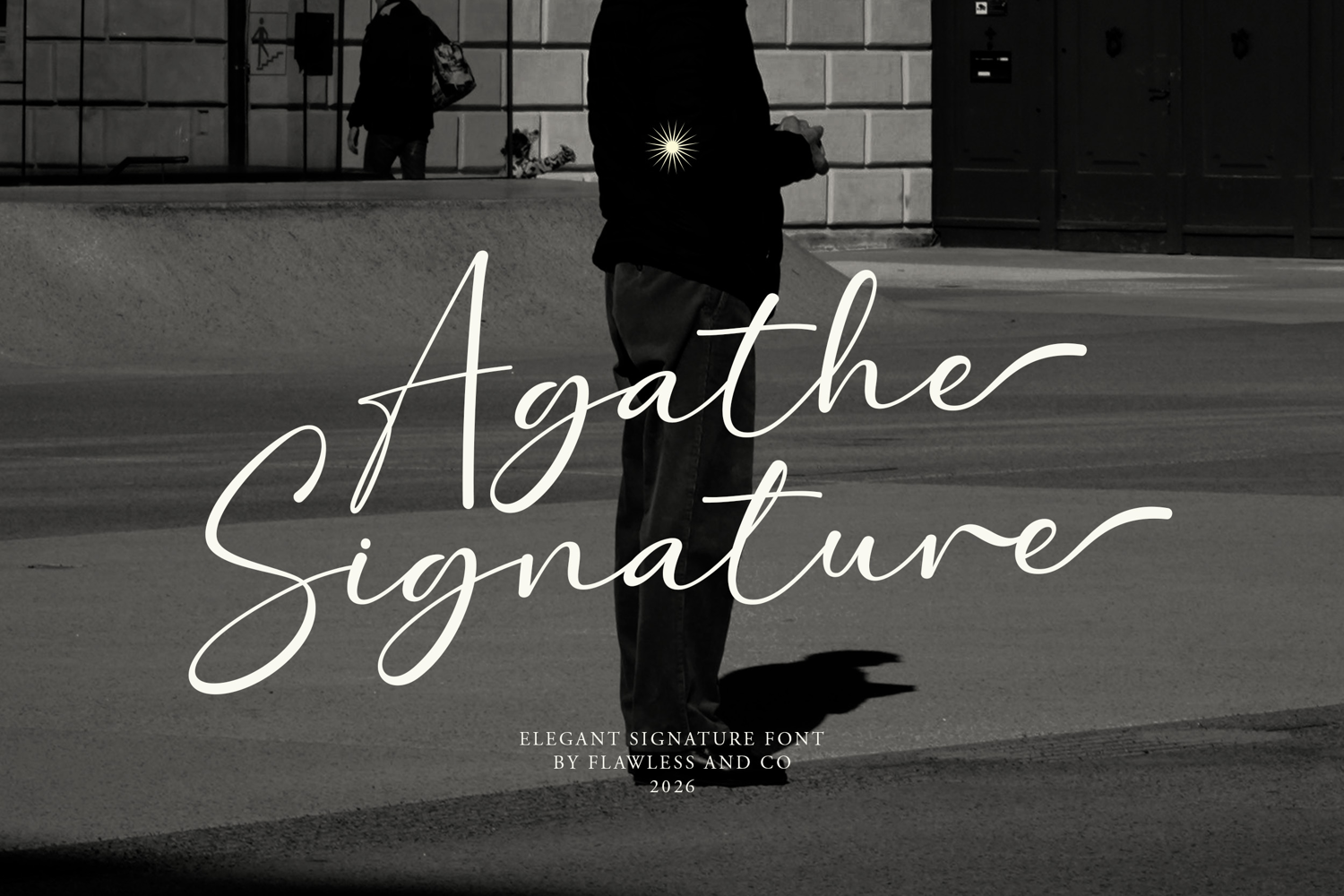
Agathe Signature
Agathe Signature - Handwritten Font
Agathe Signature is an elegant handwritten signature font crafted to capture the beauty of natural handwriting with a sophisticated and modern touch. Featuring smooth flowing strokes and delicate curves, this font brings a graceful and character to every design. Designed to feel authentic and stylish, Agathe Signature is perfect for luxury branding, wedding stationery, fashion logos, and high-end packaging.
• Alternates & Ligatures
Who Should Use Agathe Signature?
Agathe Signature is perfect for designers and creatives who want to add a refined, handwritten touch to their work. It’s ideal for brand designers developing elegant logos, especially for fashion, beauty, and luxury businesses that require a sophisticated signature style.
Suitable for:
• Luxury and fashion branding
• Signature-style logos
• Wedding invitations and stationery
• Beauty and boutique packaging
• Social media and branding
• Photography watermarks
• Elegant quotes and typography designs
• High-end marketing materials